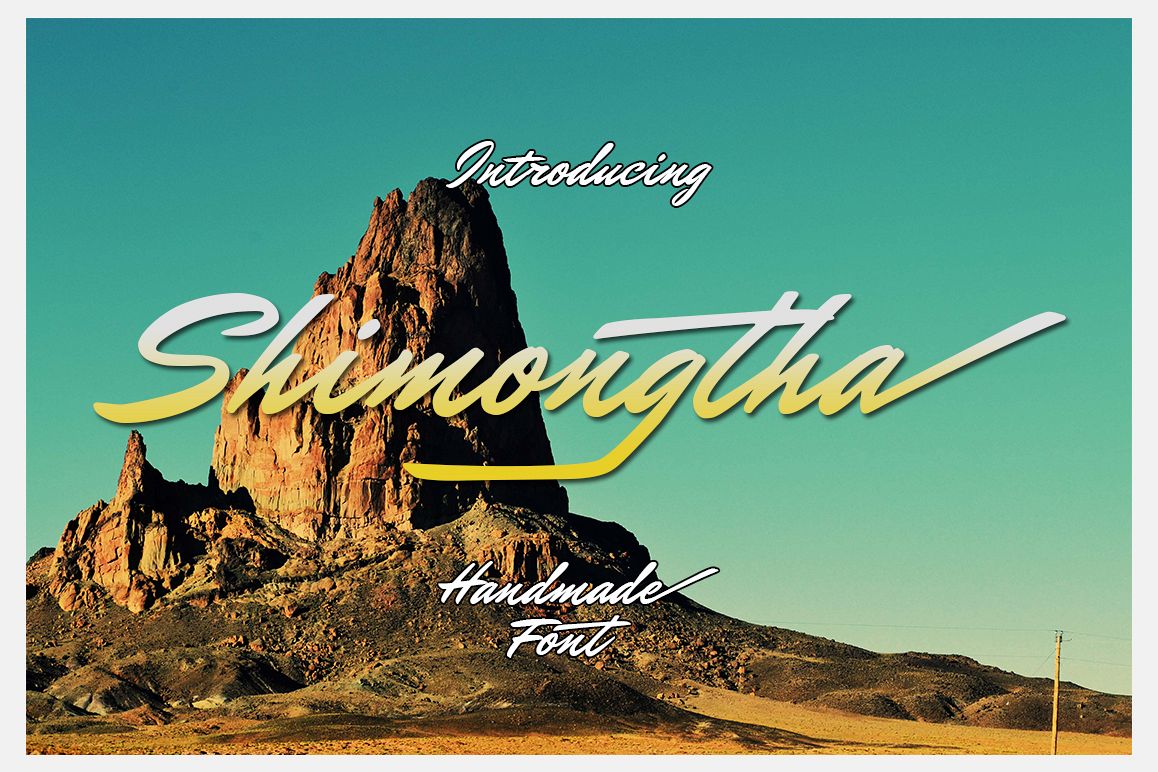
Shimongtha
Shimongtha is handmade script font , every single letters have been carefully crafted to make your text looks beautiful. With modern script style this font will perfect for many different project ex: quotes, blog header, poster, wedding, branding, logo, fashion, apparel, letter, invitation, stationery, etc.